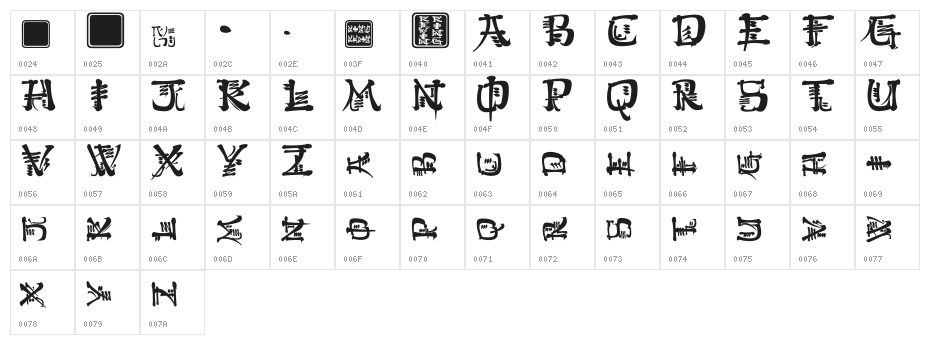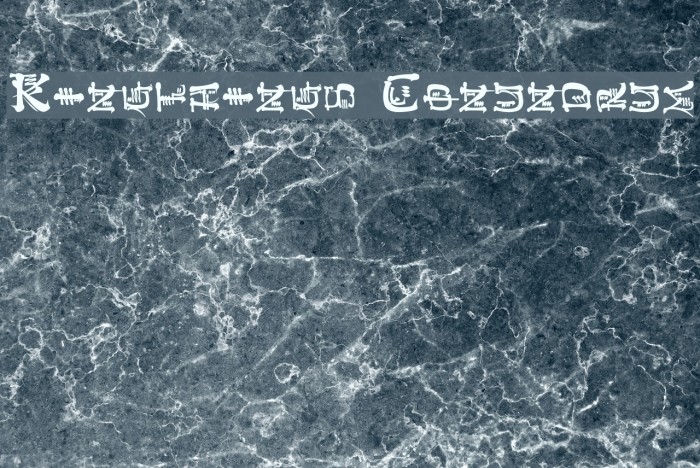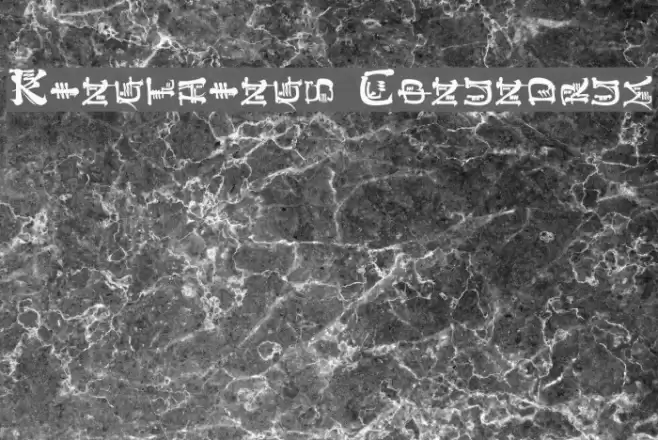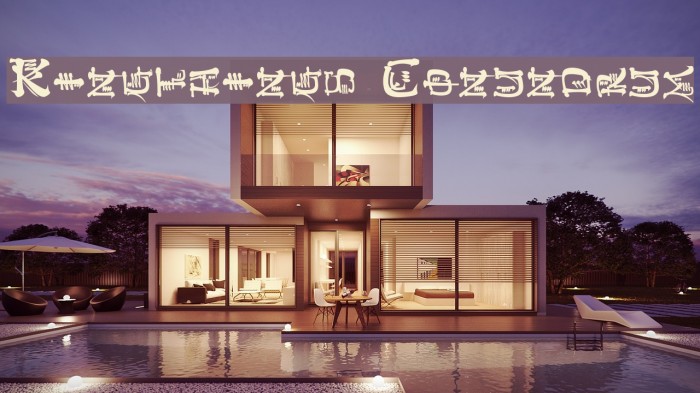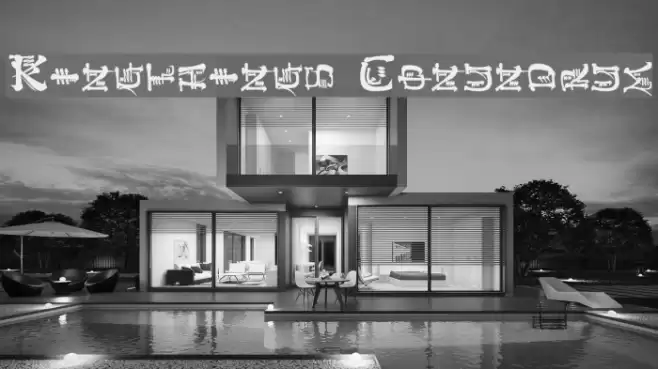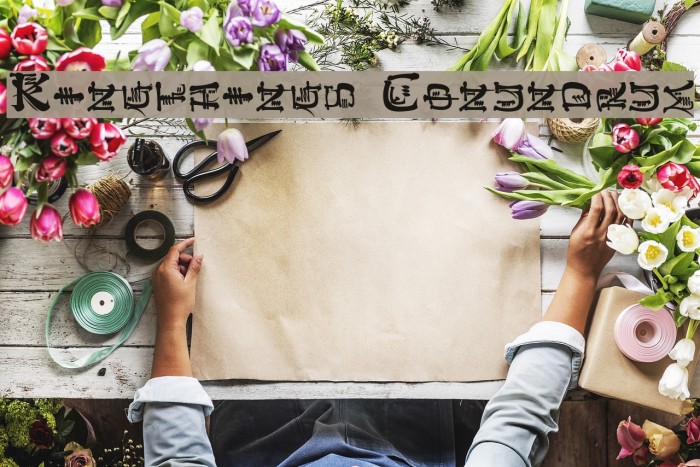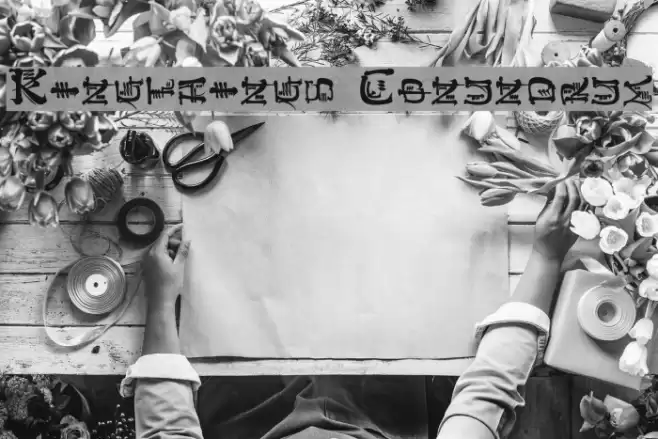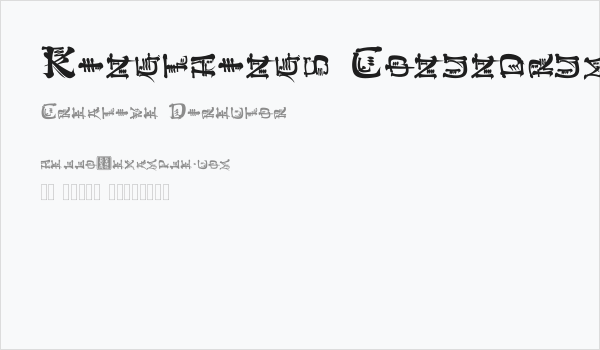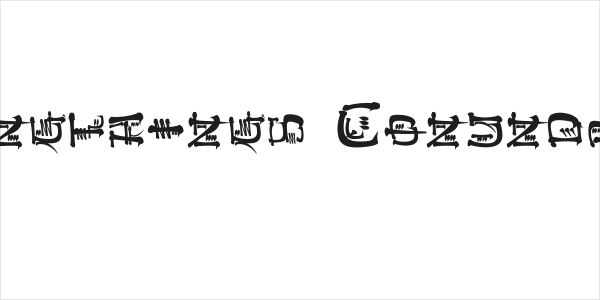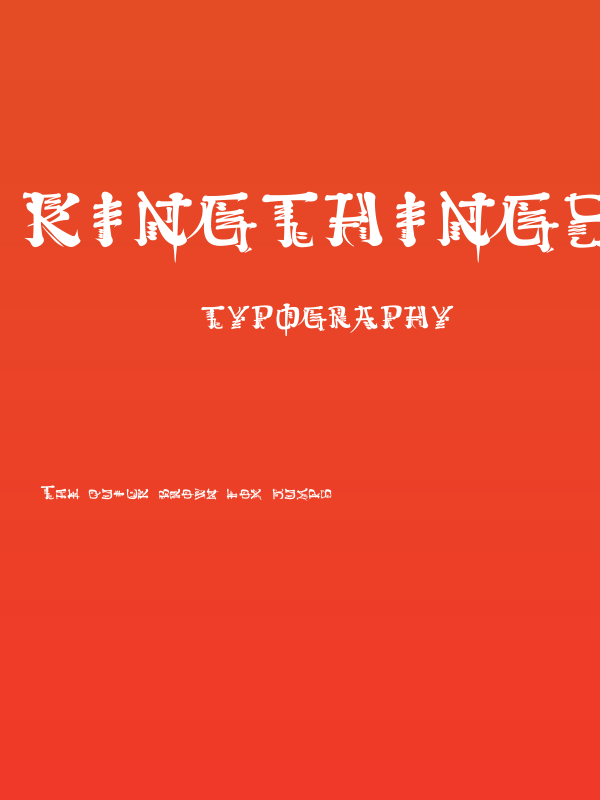
Kingthings Conundrum Font
Kingthings Conundrum Description
This font features a highly decorative and intricate design, characterized by its unique and artistic flair. Each character is adorned with elaborate embellishments, giving it a whimsical and almost mystical appearance. The strokes are bold and varied, with some parts of the letters featuring sharp, pointed edges and others showcasing rounded, softer curves. The overall look is both playful and sophisticated, making it stand out as a statement piece in any design. The font's distinctive style is reminiscent of fantasy and adventure themes, with a touch of historical elegance. It is perfect for projects that require a touch of creativity and uniqueness, such as fantasy book covers, themed event invitations, or artistic posters.
| Proposed Projects | Ideal for fantasy book covers, themed event invitations, artistic posters, and creative branding. |